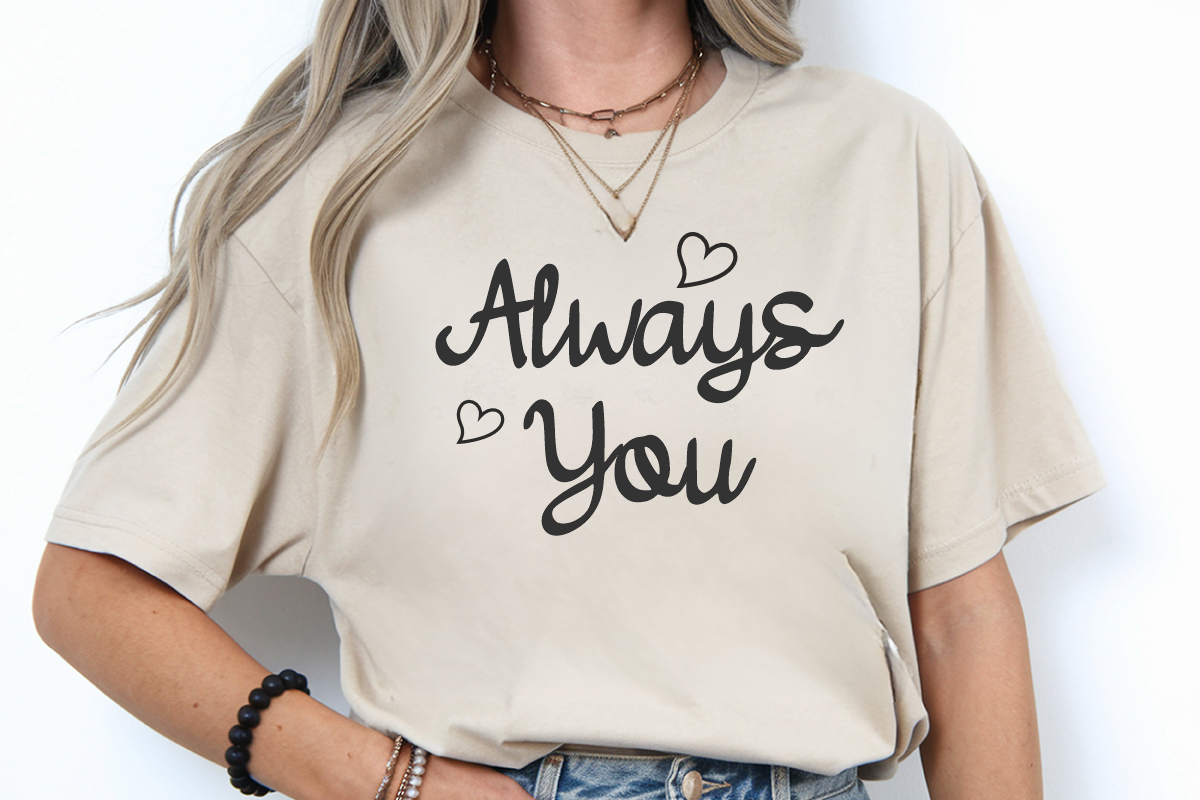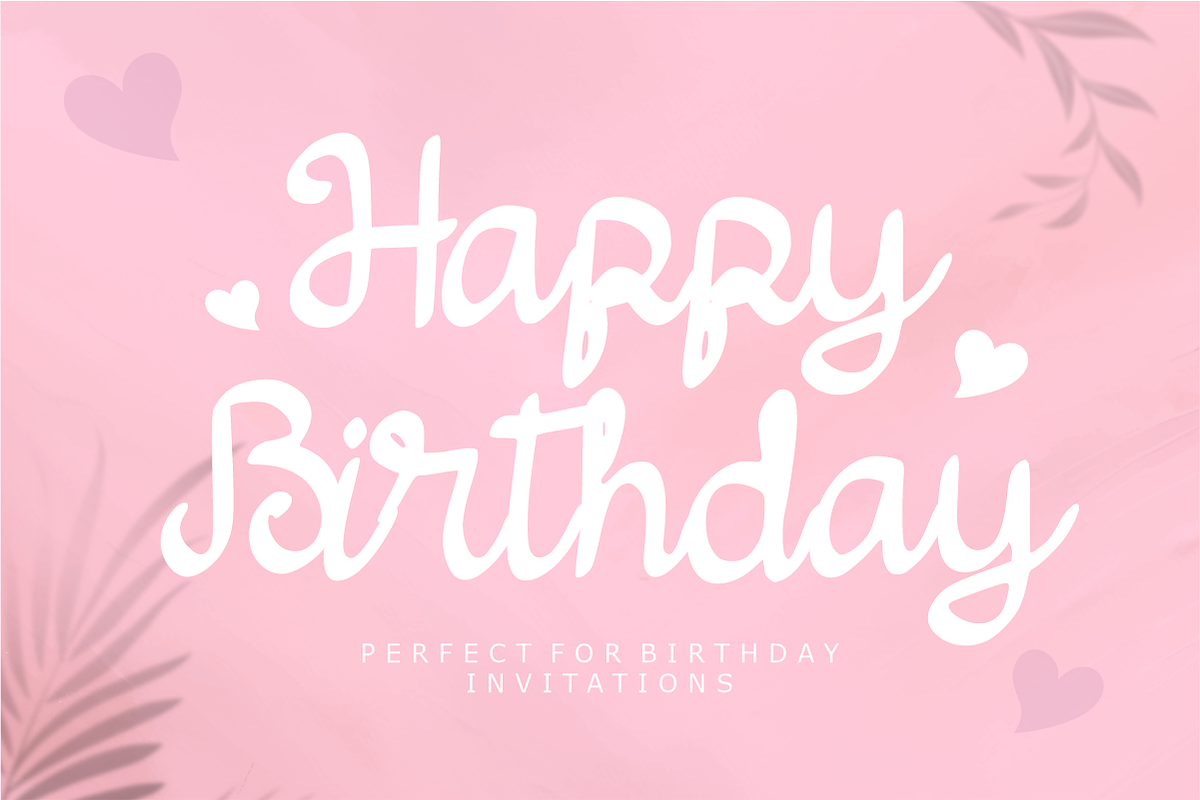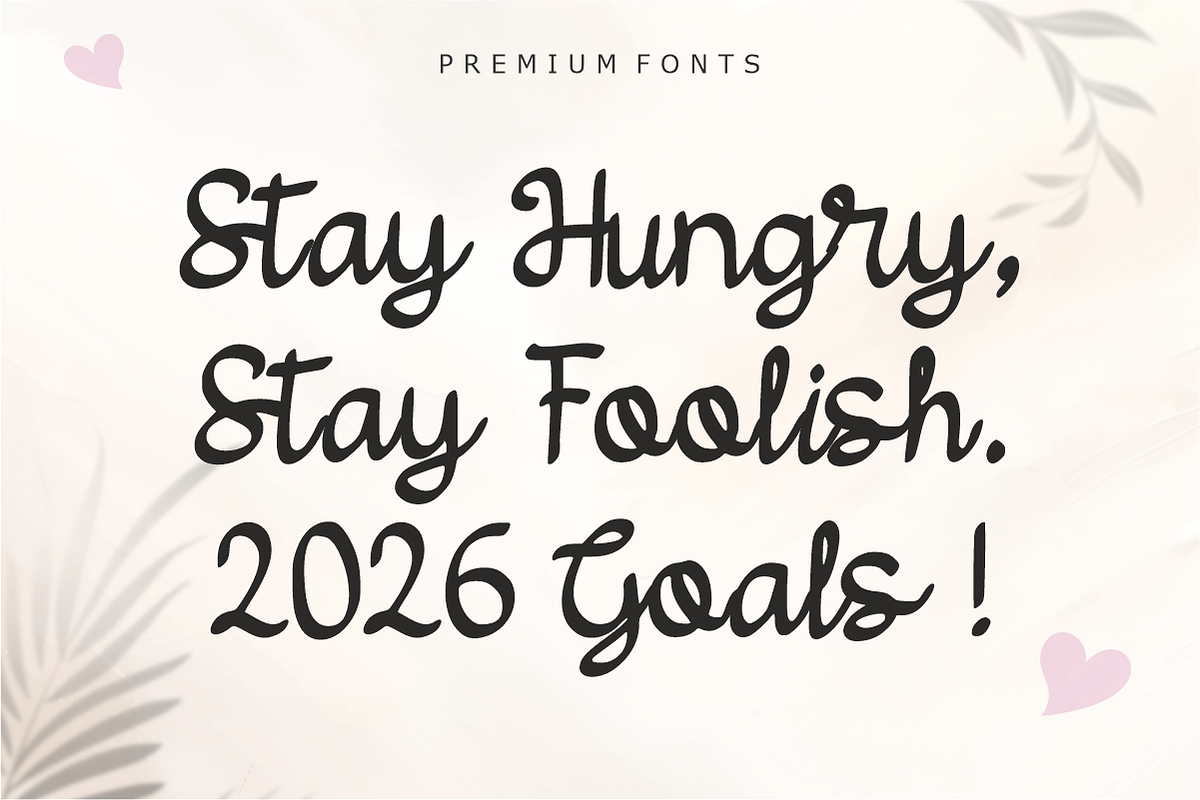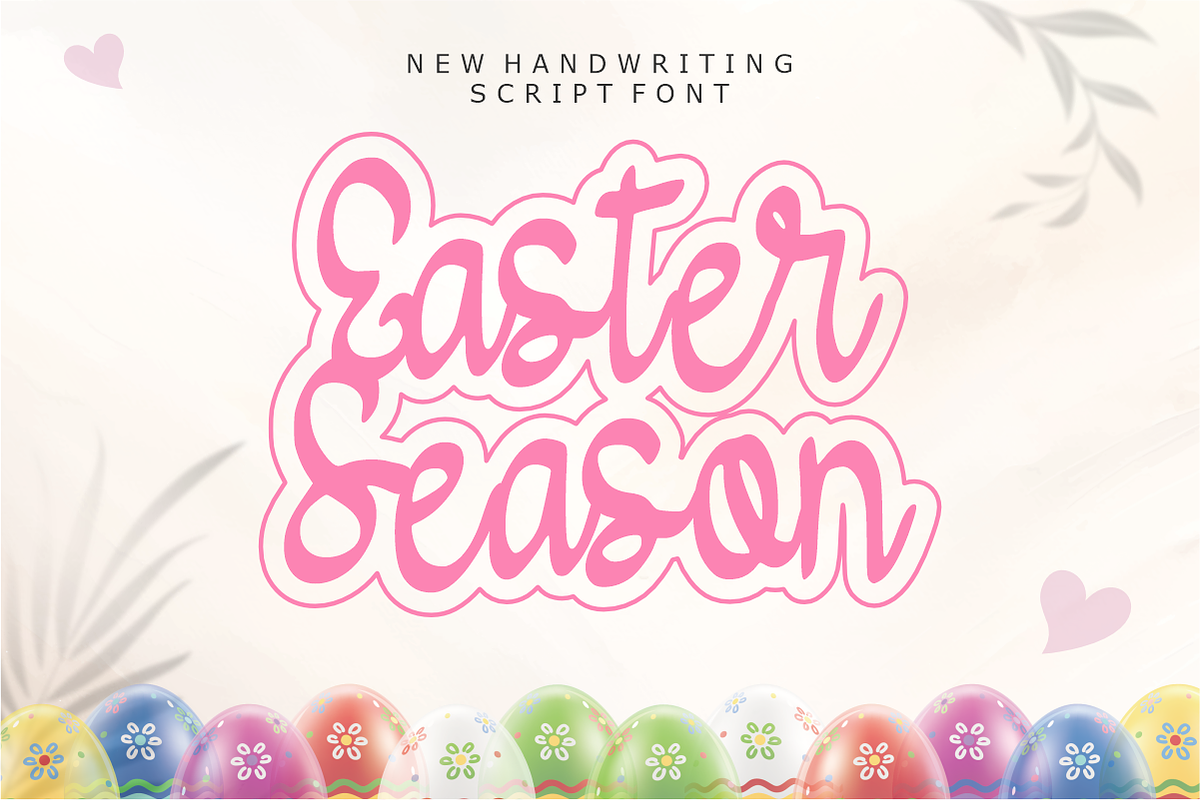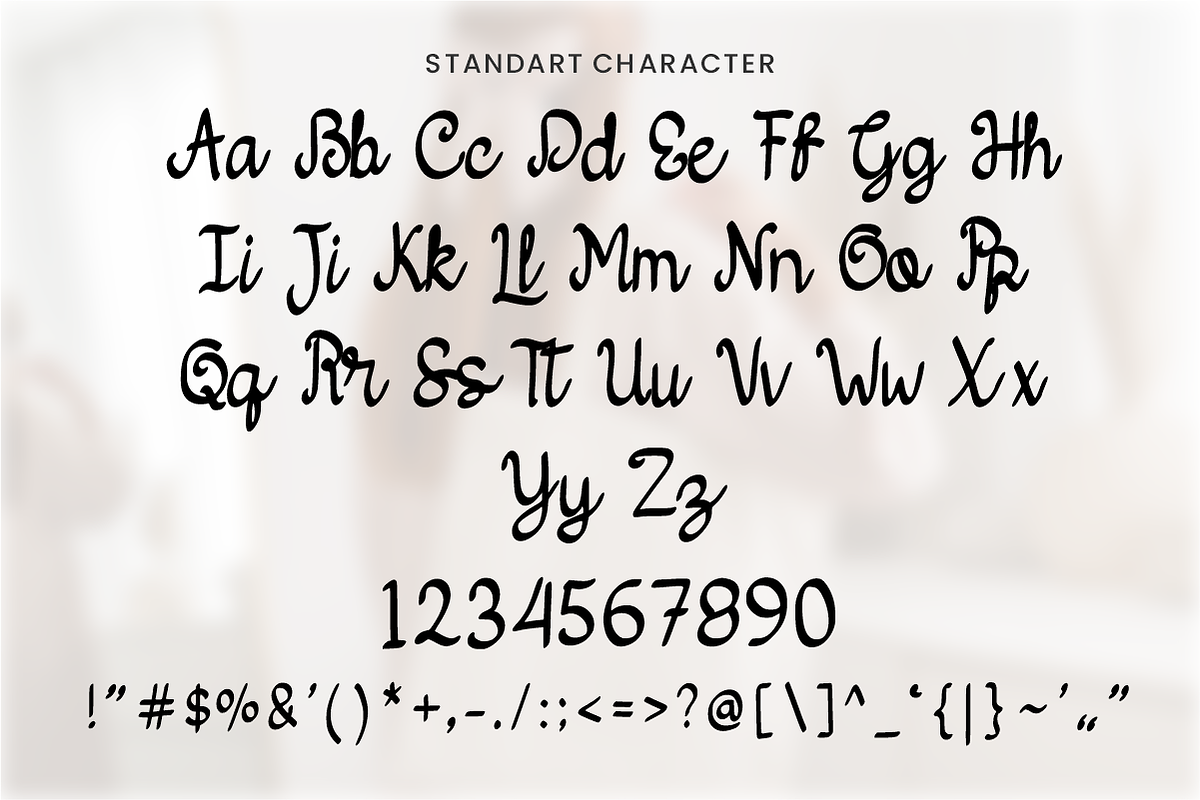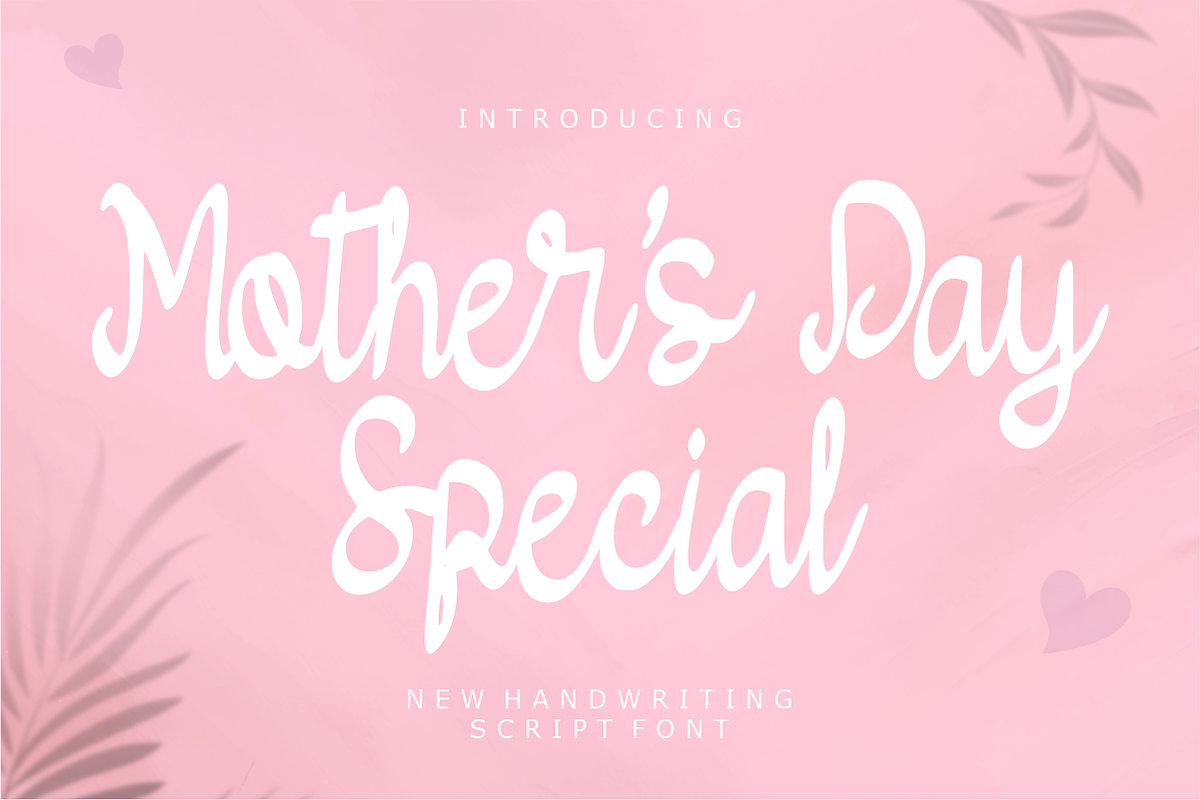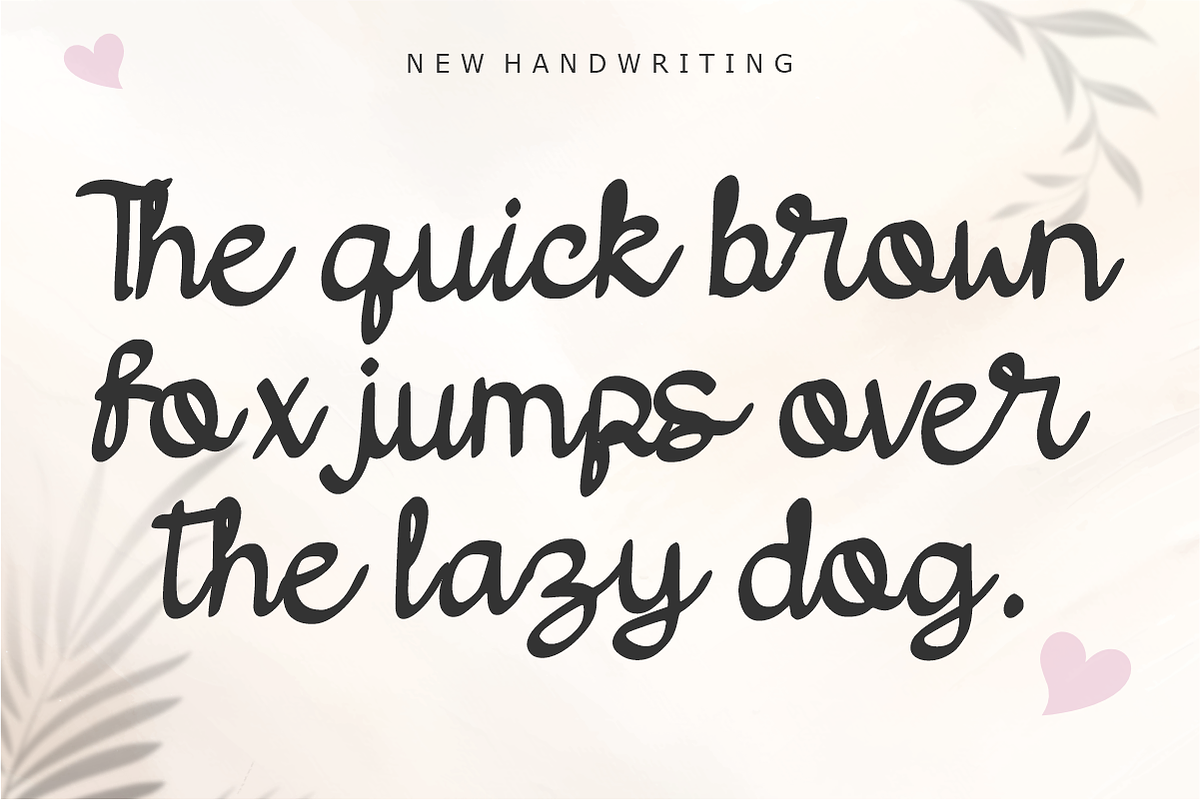
Mother's Day Special - Handwritting
๐ธ Mother's Day Special โ Elegant Handwriting Script Font ๐ Celebrate unconditional love with a touch of elegance! ๐
Mother's Day Special is a beautiful and flowing handwriting script font designed to capture the warmth and tenderness of a mother's touch. With its graceful curves and natural brush-like strokes, this font brings a personalized, heartfelt feel to any design. It is the perfect choice for projects that aim to be soft, sophisticated, and deeply emotional.
Whether you're crafting a tribute for Mom or designing high-end feminine branding, Mother's Day Special adds a poetic charm that speaks directly to the heart.
โจ Why Youโll Love It: Graceful Flow: Soft, elegant script that mimics natural handwriting.
Complete Essentials: Includes All Uppercase Letters, Numbers, and Simple Symbols.
Feminine Touch: Perfect for delicate, romantic, and warm-hearted designs.
๐จ Perfect For: ๐ Motherโs Day Greeting Cards & Stationery
๐ Wedding Invitations & Event Signage
๐ Beauty, Fashion, & Lifestyle Branding
๐ Custom Gifts & Personalized Apparel
๐ฑ Elegant Social Media Quotes & Reels
๐ Flower Shop & Gift Boutique Branding